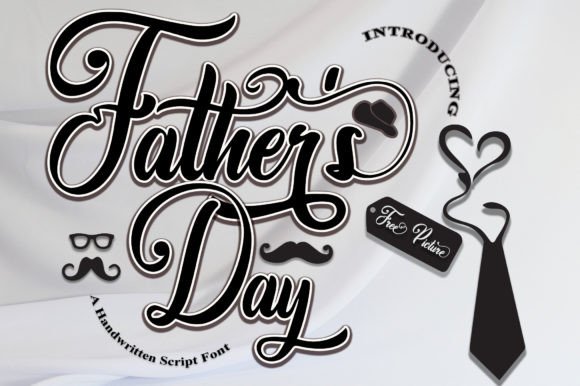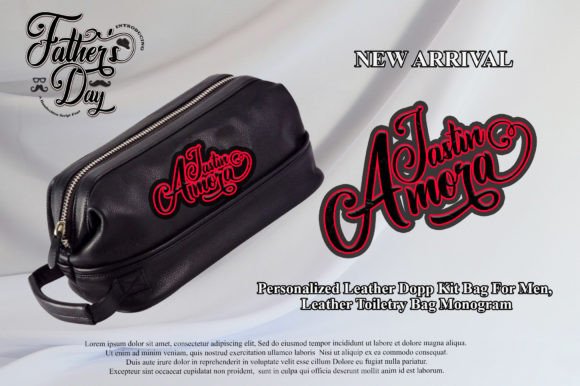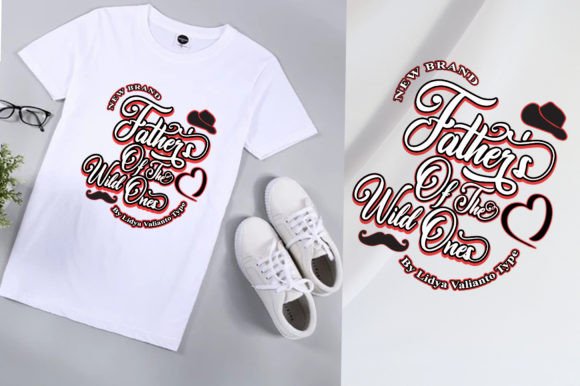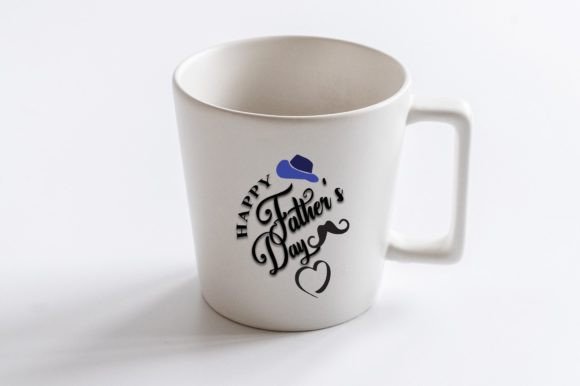
Father’s Day  Font
About the Father’s Day  Font
Meet Father’s Day  Font, a stunning font that brings a touch of elegance and professionalism to any design. Father’s Day is an elegant and very creative handwritten font, with several free images on the theme of Father’s Day. Looks stunning on wedding invitations, book covers, greeting cards, quotes, logos, business cards, and other designs, Get inspired by its unique charm and create lovely designs.
This elegant script is ideally suited for projects requiring a touch of refined handwritten charm. It excels in applications such as logos, wedding stationery, and short-form quotes where its delicate details shine. However, its intricate nature makes it less suitable for body text or UI elements, where readability is paramount. Avoid using it for large blocks of text.
For optimal visual impact, pair “Father’s Day Font” with a clean sans-serif like Lato for a contemporary feel, or a classic serif such as Garamond for a more traditional approach. The contrast will create a balanced and sophisticated aesthetic. A simple geometric sans-serif could also work well, providing a modern counterpoint to the script’s flowing lines.
The font projects a feeling of sophisticated warmth and approachability, making it perfect for brands that wish to convey a sense of timeless elegance and personal connection.